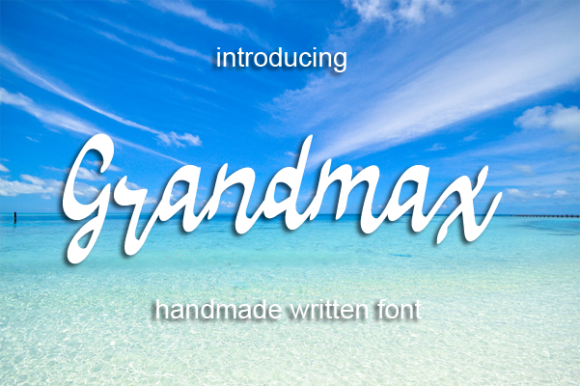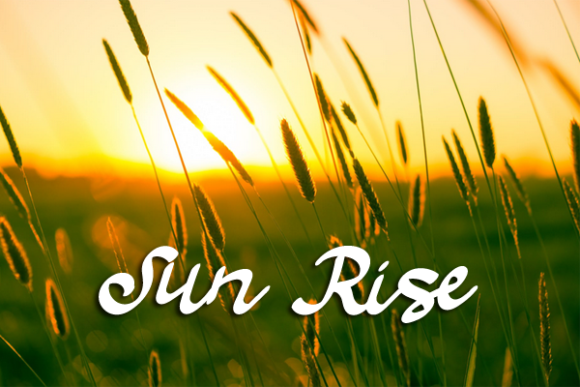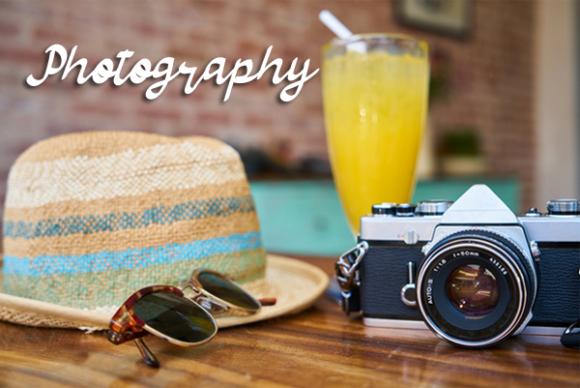
About Grandmax Font
Grandmax is a delicate, elegant and flowing handwritten font. It has beautiful and well balanced characters and as a result, it matches a wide pool of designs. Add it to your most creative ideas and notice how it makes them come alive!